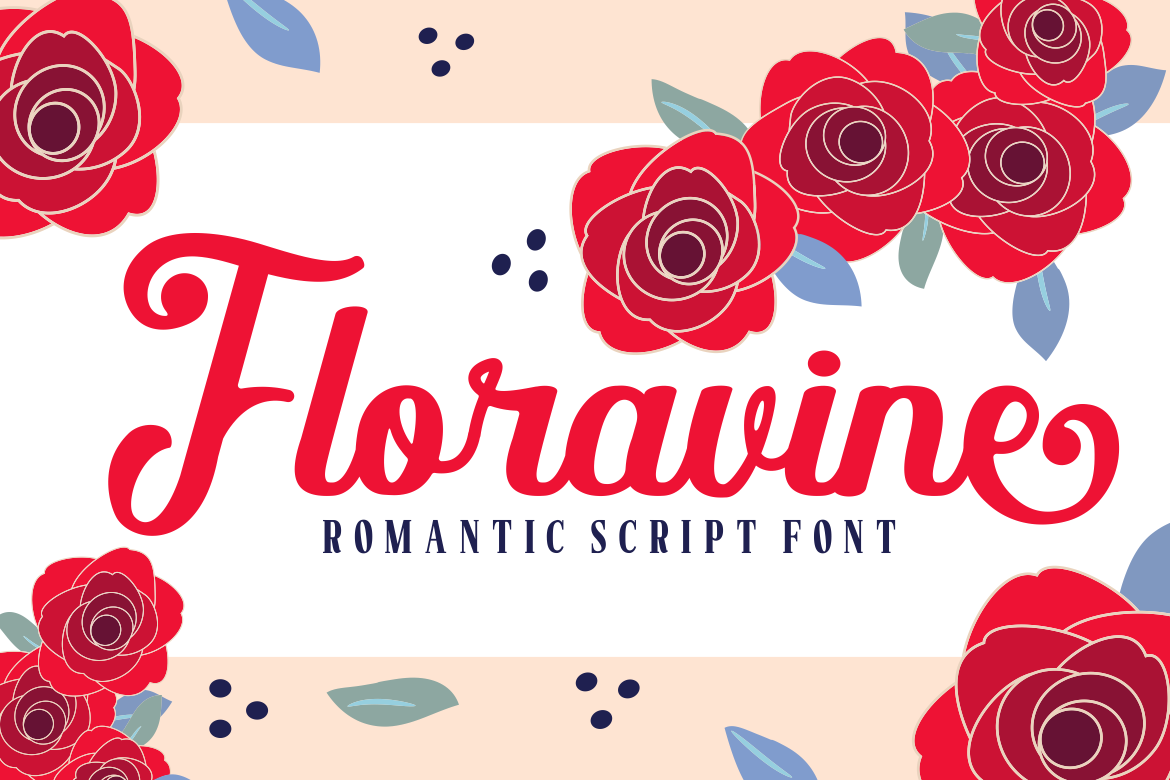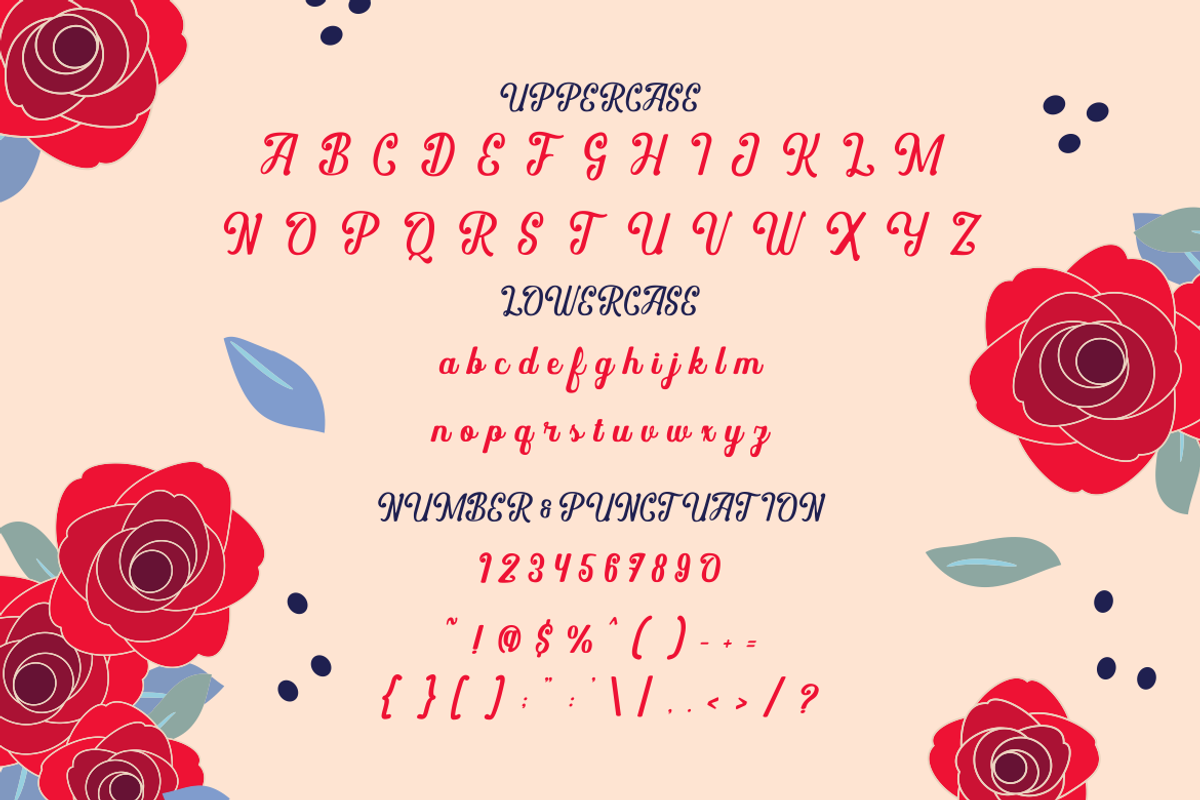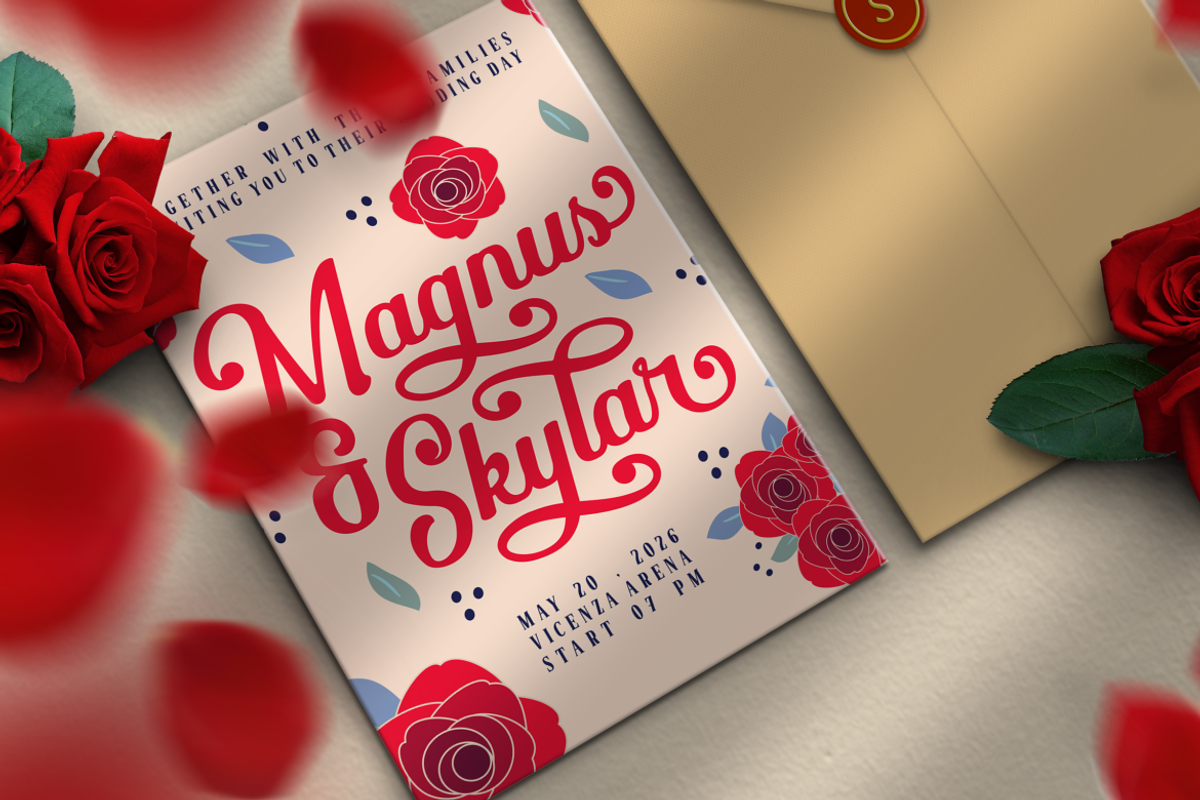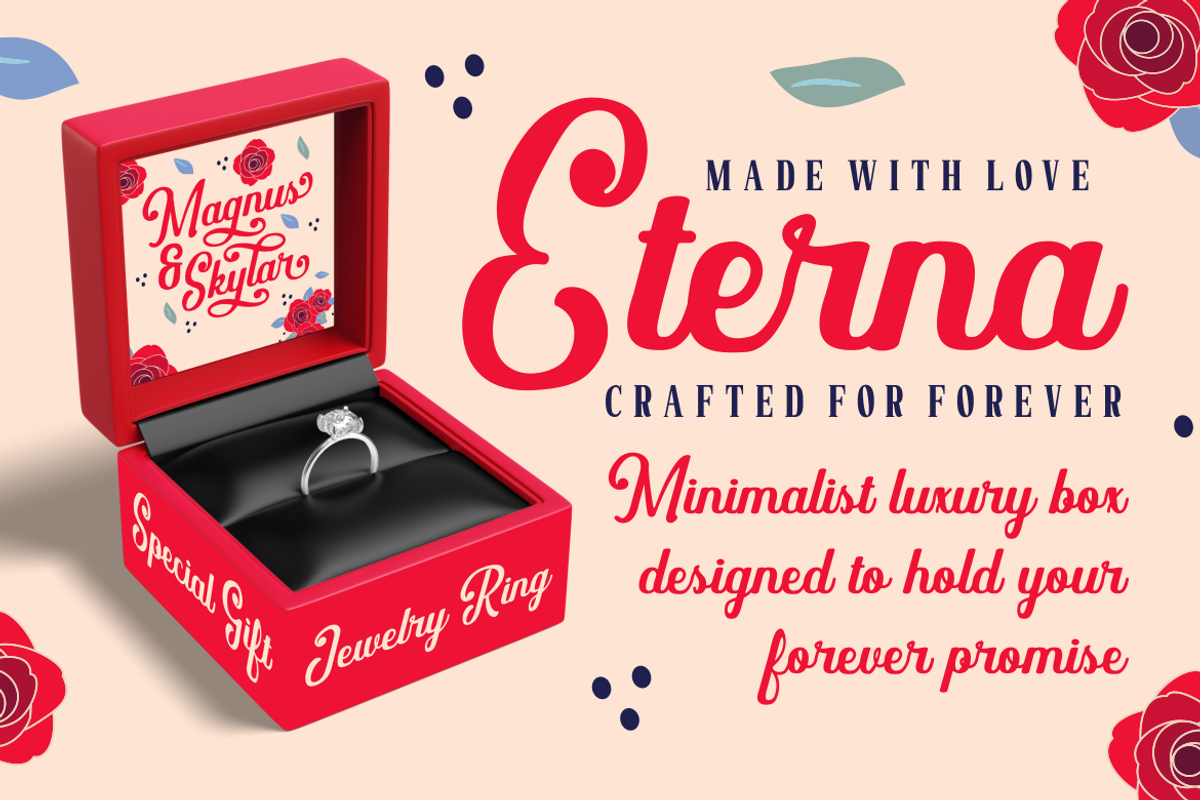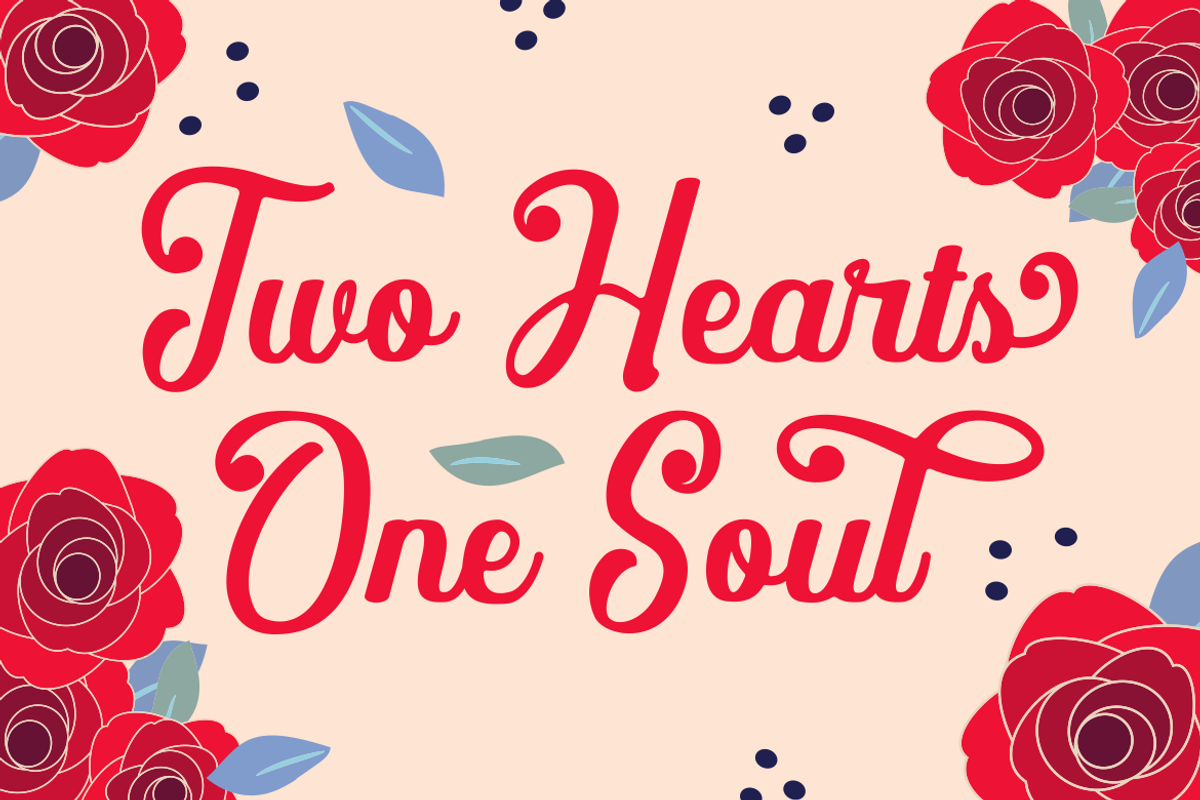
Floravine Romantic Script Font
Floravine Romantic Script Font is a flowing handwritten typeface inspired by romantic calligraphy. The characters feature smooth curves, medium stroke weight, and balanced proportions. Each letter connects naturally, creating graceful rhythm across every word. The strokes appear slightly thick with soft transitions that give a warm handwritten character. Tall ascenders and elegant loops add visual elegance without reducing readability. Rounded terminals and subtle swashes strengthen the romantic atmosphere. Floravine Romantic Script Font blends modern script style with classic calligraphic influence. The typeface communicates love, warmth, and emotional storytelling through typography. Designers can use it for wedding logos, romantic branding, and heartfelt headline designs.
This script typeface delivers a soft, expressive, and personal tone. The flowing letterforms create harmony across words and sentences. It suits romantic themes, wedding celebrations, and love inspired branding. Designers can apply it to logos, invitations, greeting cards, and event announcements. The balanced stroke structure keeps the text readable while preserving decorative elegance. Floravine Romantic Script Font works beautifully for poster titles, magazine covers, packaging labels, and branding projects. It also fits quote typography, book covers, crafting designs, stickers, and promotional headlines. Businesses focused on wedding services, jewelry gifts, romantic events, and celebration products can build memorable visual identities with this font.